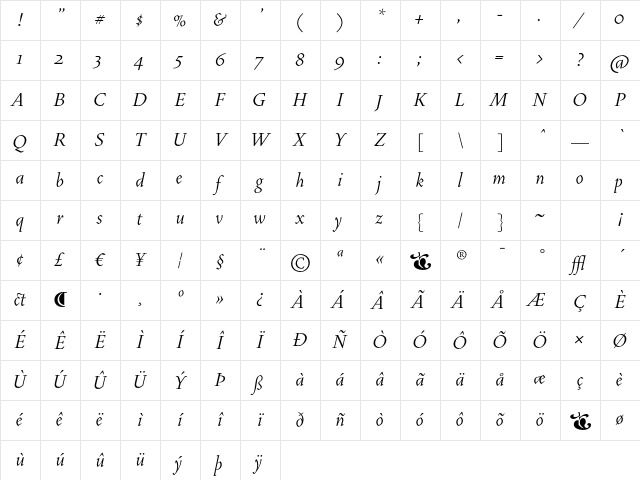
VendettaLight Italic
Design Context for VendettaLight
VendettaLight is a composed and adaptable typeface that performs quietly and consistently across a wide range of design contexts. The slanted form adds forward momentum and visual energy. Its slender proportions lend an understated elegance to any composition.
Pro Tip: Use VendettaLight for emphasis, pull quotes, and subheadings where its slanted energy can add rhythm to the layout.